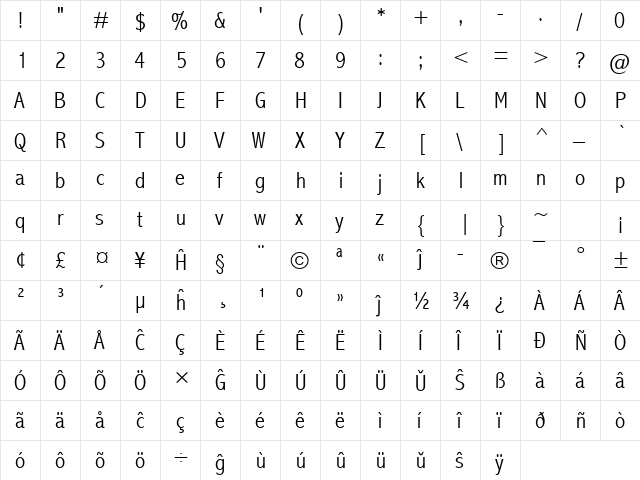
Abadi MT Condensed Light Eo Regular Font Preview
Design Context for Abadi MT Condensed Light Eo Typeface
Abadi MT Condensed Light Eo offers clean, dependable letterforms without strong stylistic allegiance, making it a practical choice for designers who need flexibility. Its slender proportions lend an understated elegance to any composition. The condensed width makes it efficient for tight spaces without sacrificing legibility.